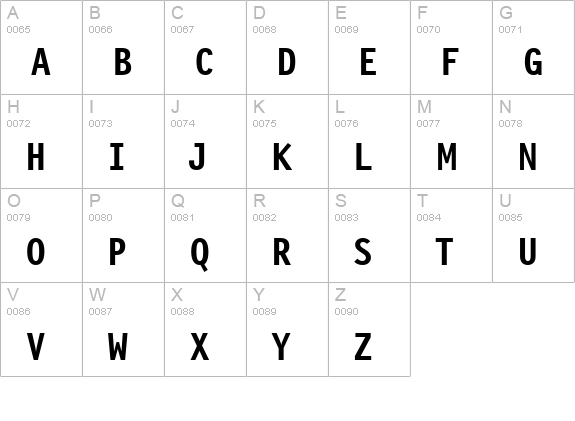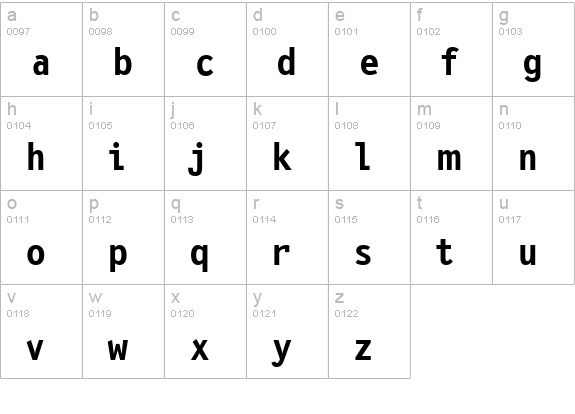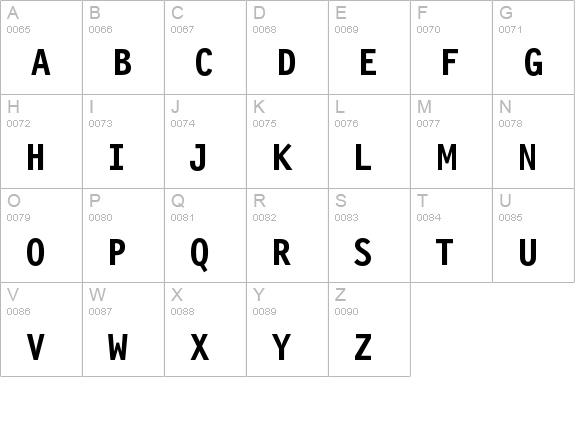
PFLetterGothicThree Bold Font Details
PFLetterGothicThree Bold is a strong, high-contrast variant in the PFLetterGothicThree typeface family \xE2\x80\x94 well suited to headlines, attention-grabbing titles, and strong calls-to-action.
PFLetterGothicThree Bold font is a striking and modern typeface that exudes confidence and authority. Its bold and strong design makes it perfect for headlines, posters, and branding materials that demand attention. With its clean lines and geometric shapes, this font is ideal for creating a bold statement in your designs. Best of all, PFLetterGothicThree Bold font is available for free download at FontsMarket.com. This means you can easily access this versatile typeface and use it in your projects without worrying about any costs. Whether you're a designer, student, or hobbyist, this font is a valuable addition to your typography collection. Download PFLetterGothicThree Bold font today and add a touch of boldness to your designs!